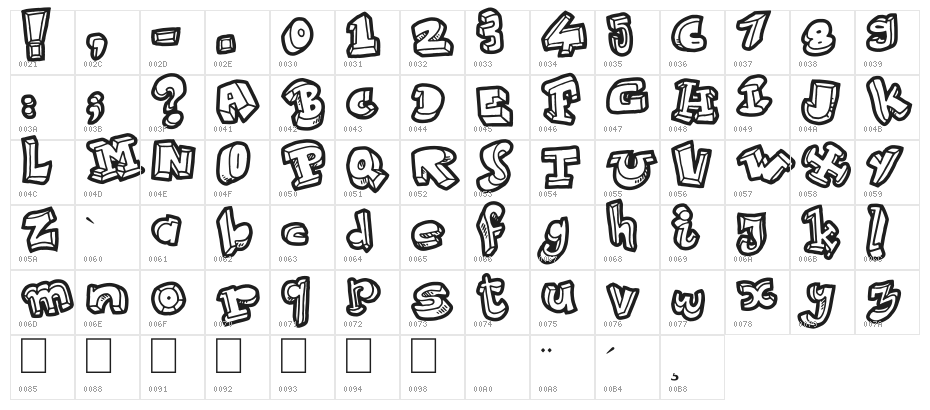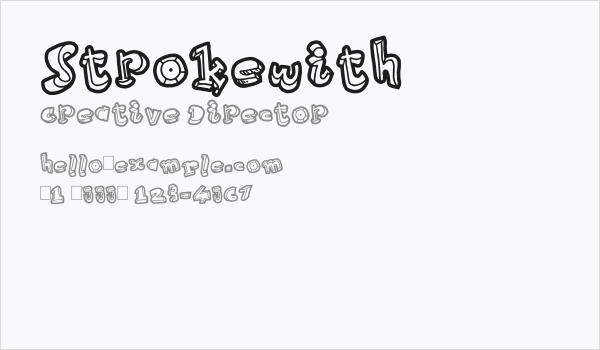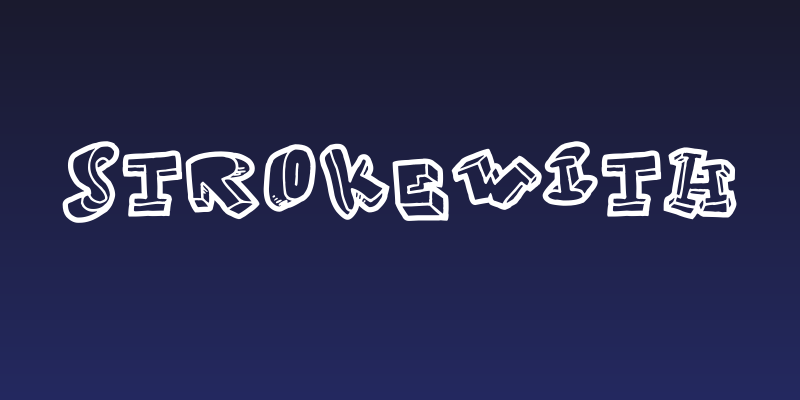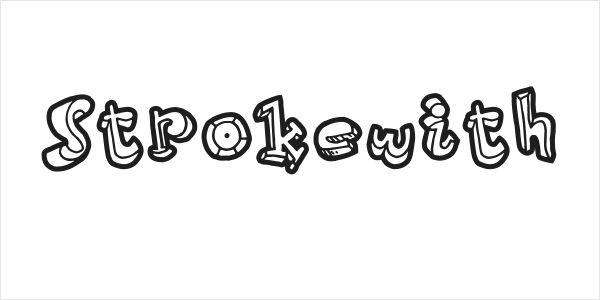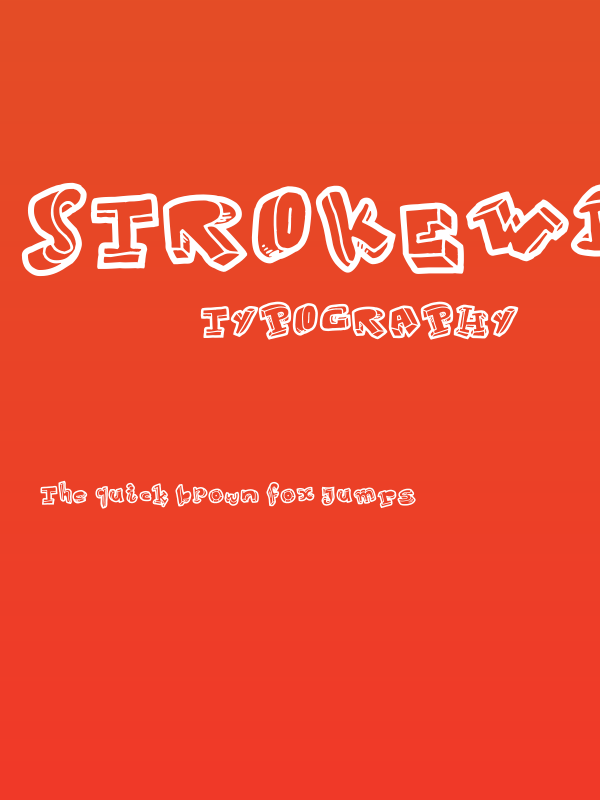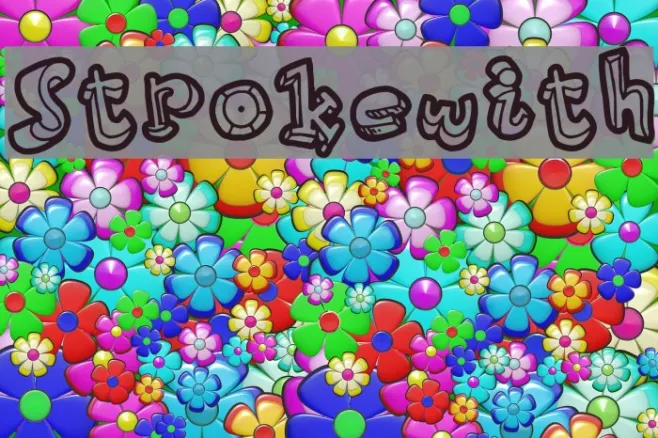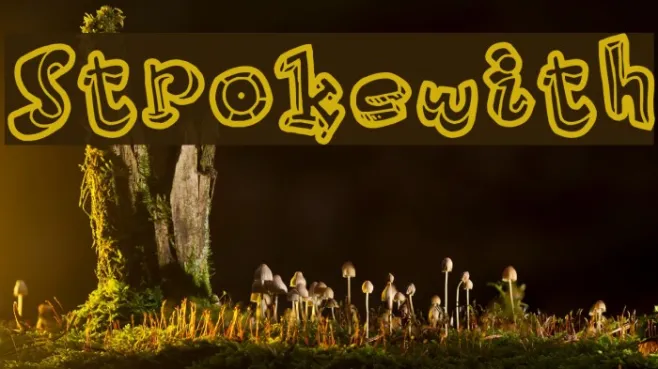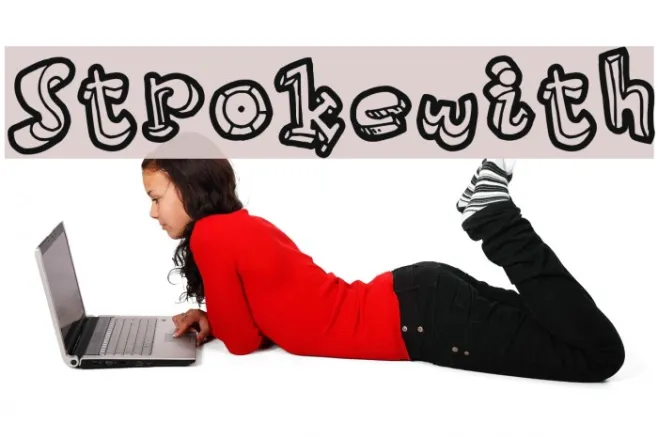
Strokewith Font
Strokewith Description
This font features a bold, playful style with a three-dimensional effect, giving each character a sense of depth and movement. The letters are outlined with a thick black stroke, enhancing their visibility and making them stand out. The design incorporates a hand-drawn aesthetic, with irregular shapes and a slightly whimsical appearance. The uppercase and lowercase letters maintain a consistent style, while the numerals and special characters complement the overall look. This font is ideal for creative projects that require a fun and engaging visual element.
| Overall Style | Playful, Whimsical, Hand-drawn |
| Use Case | Headlines, Posters, Branding |
| Proposed Projects | Ideal for children's books, comic strips, playful branding, and event posters. |